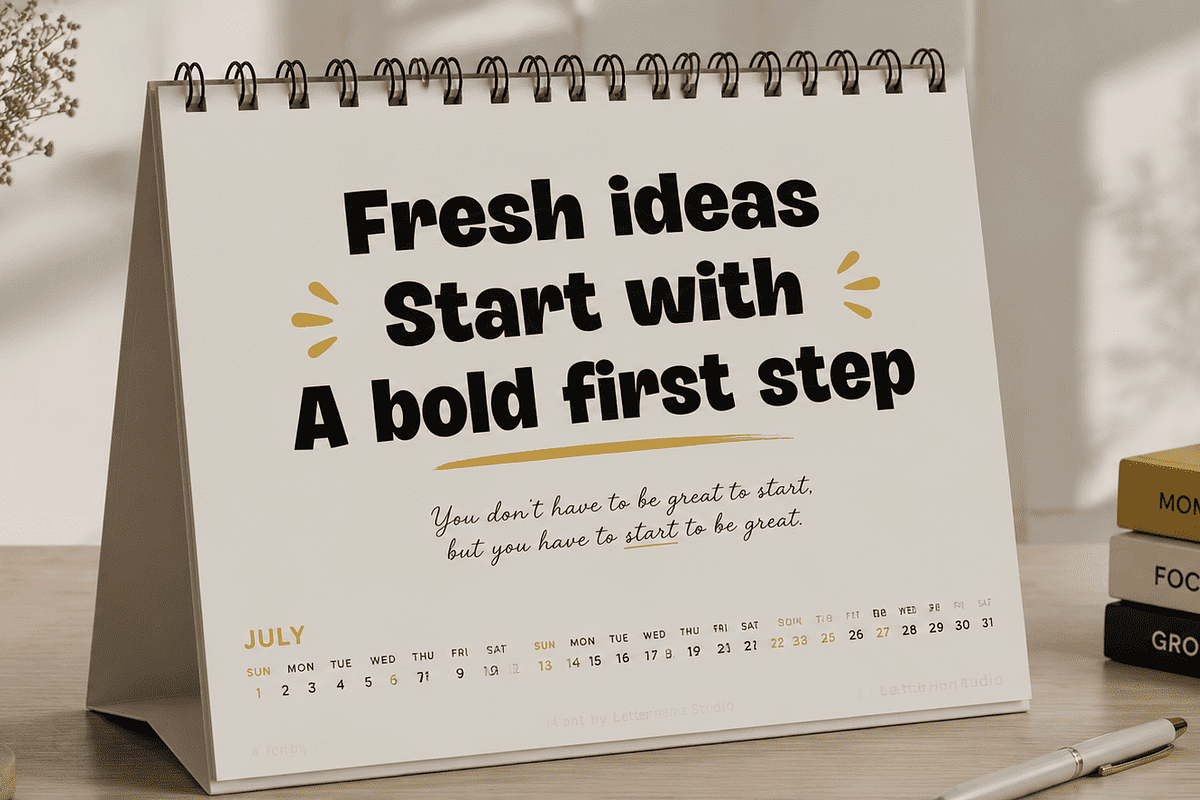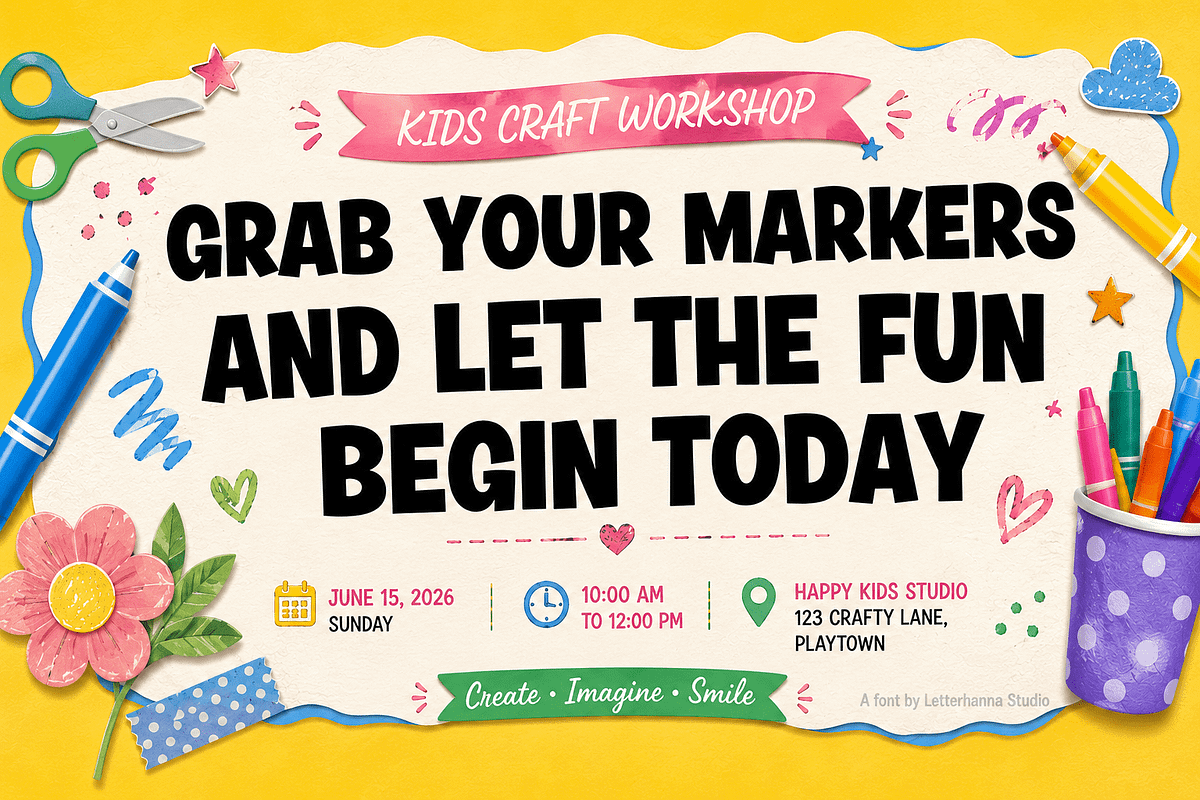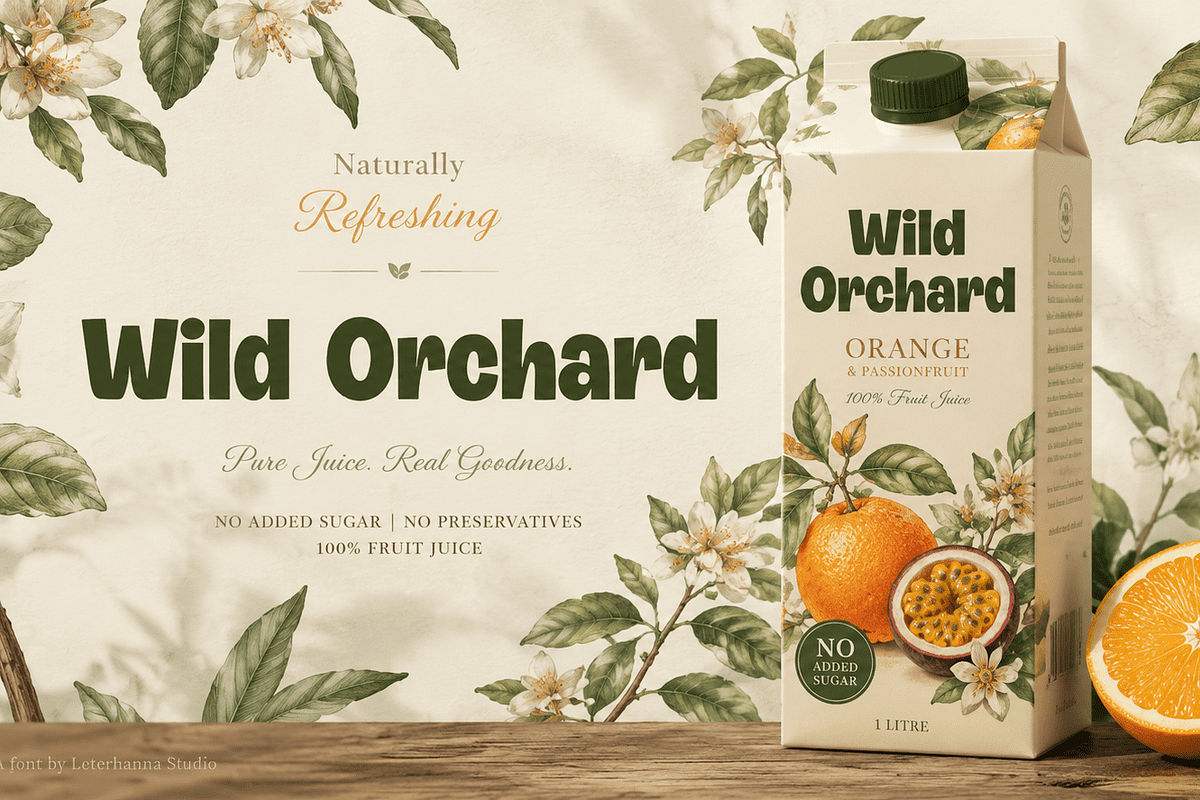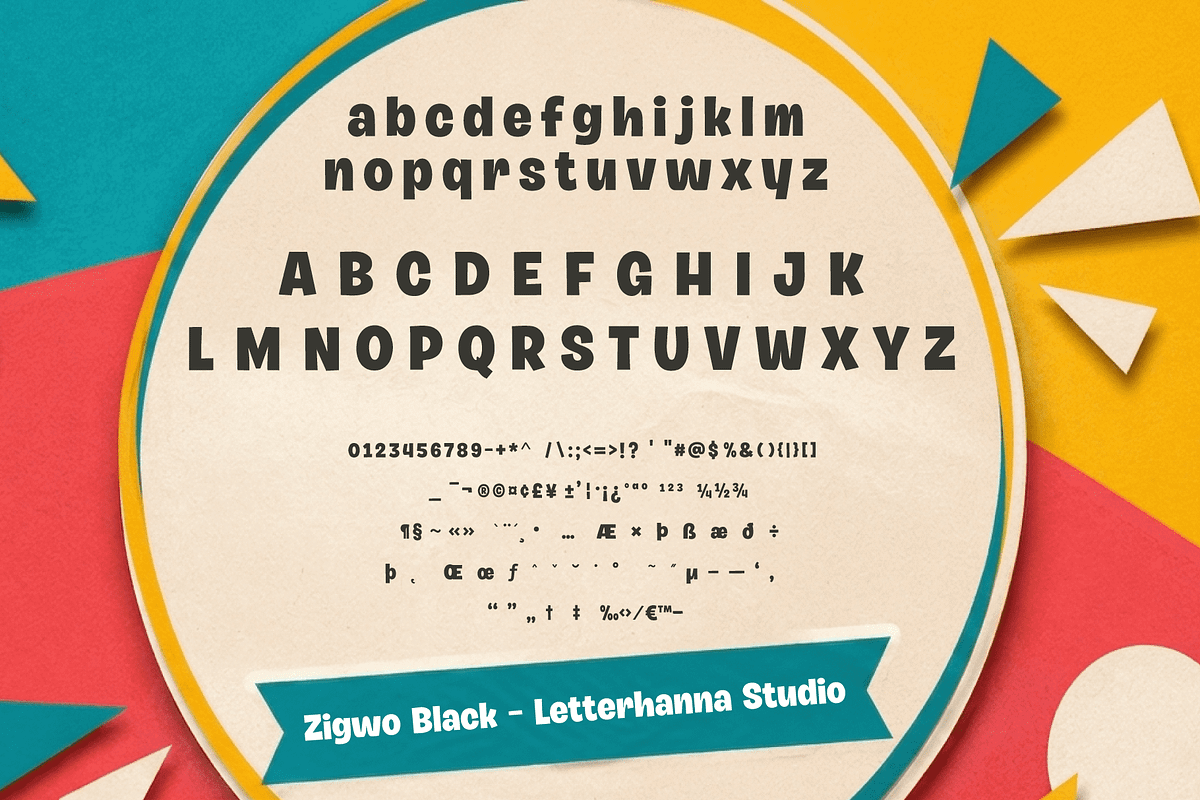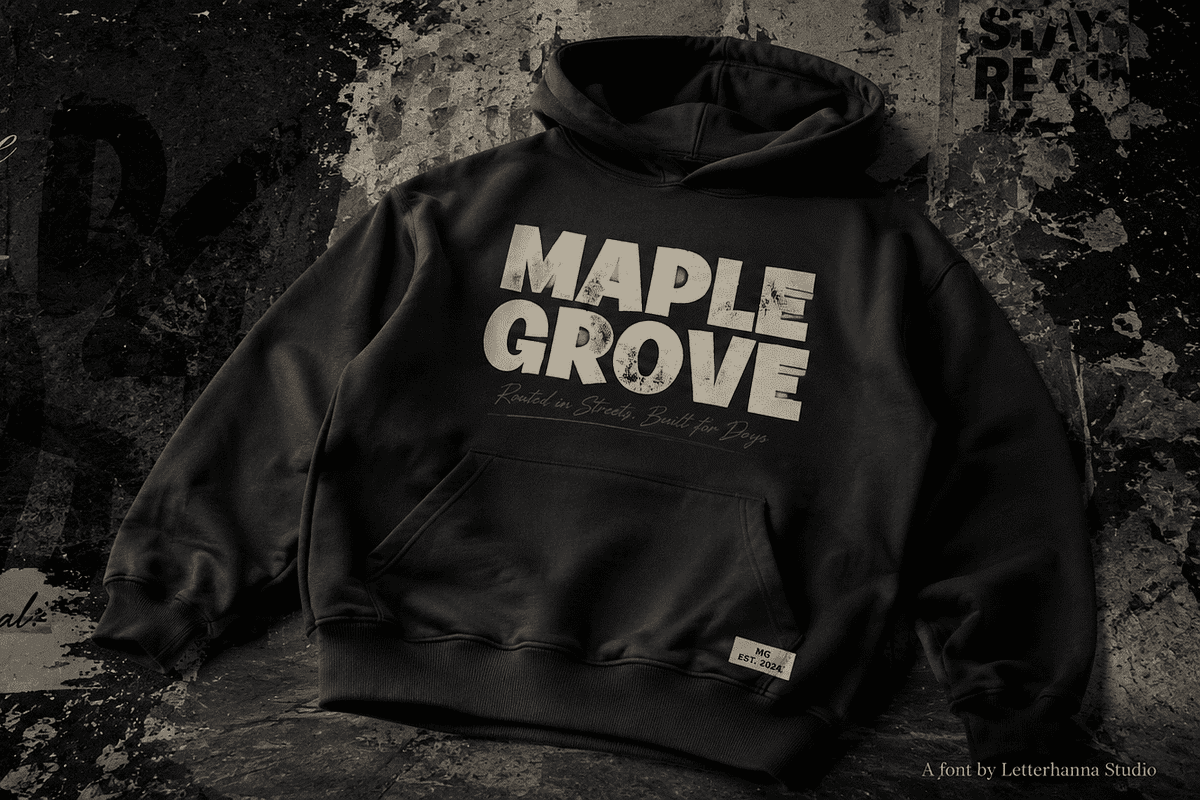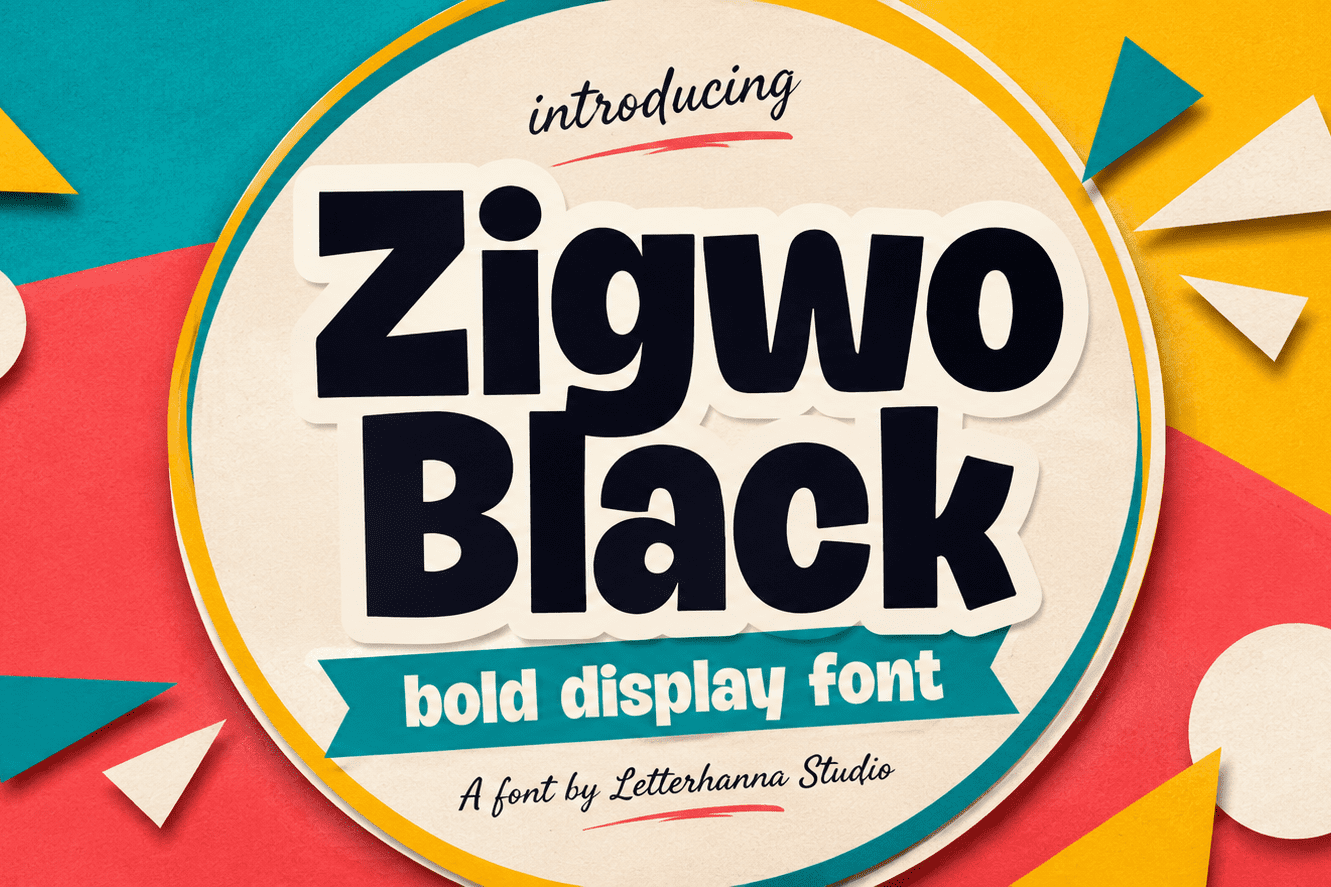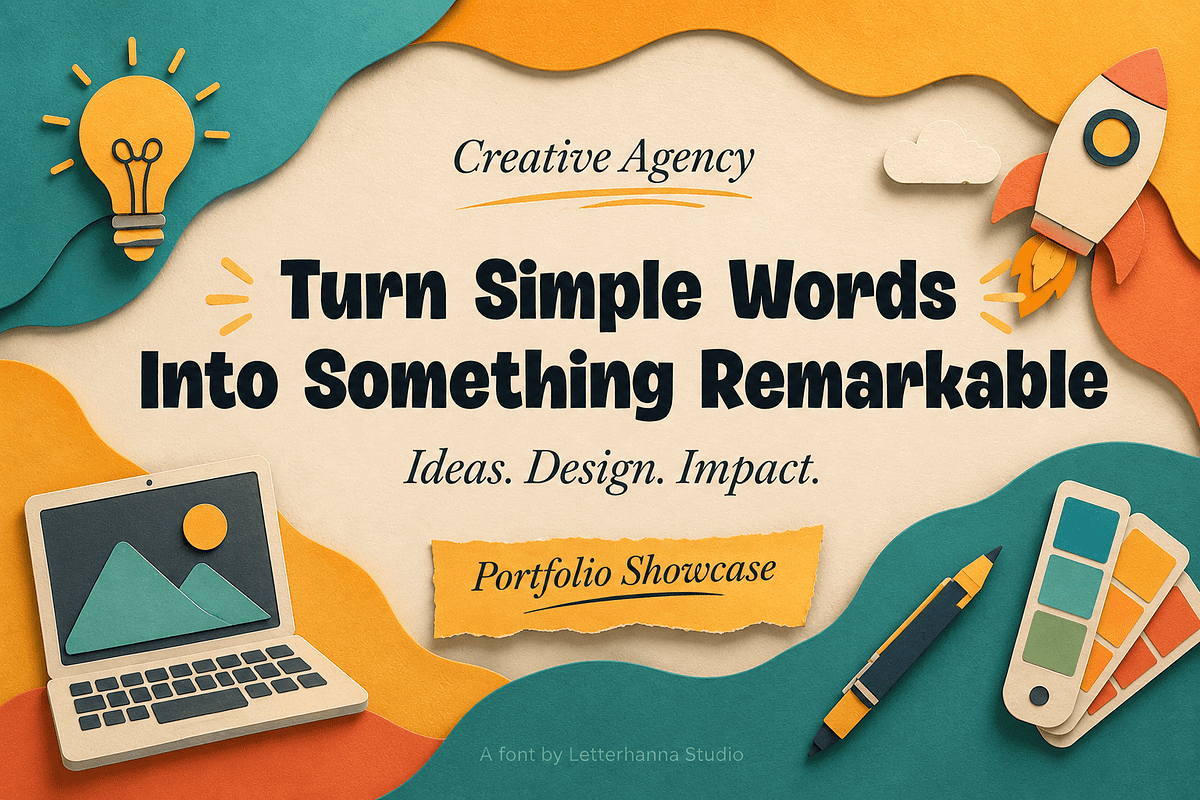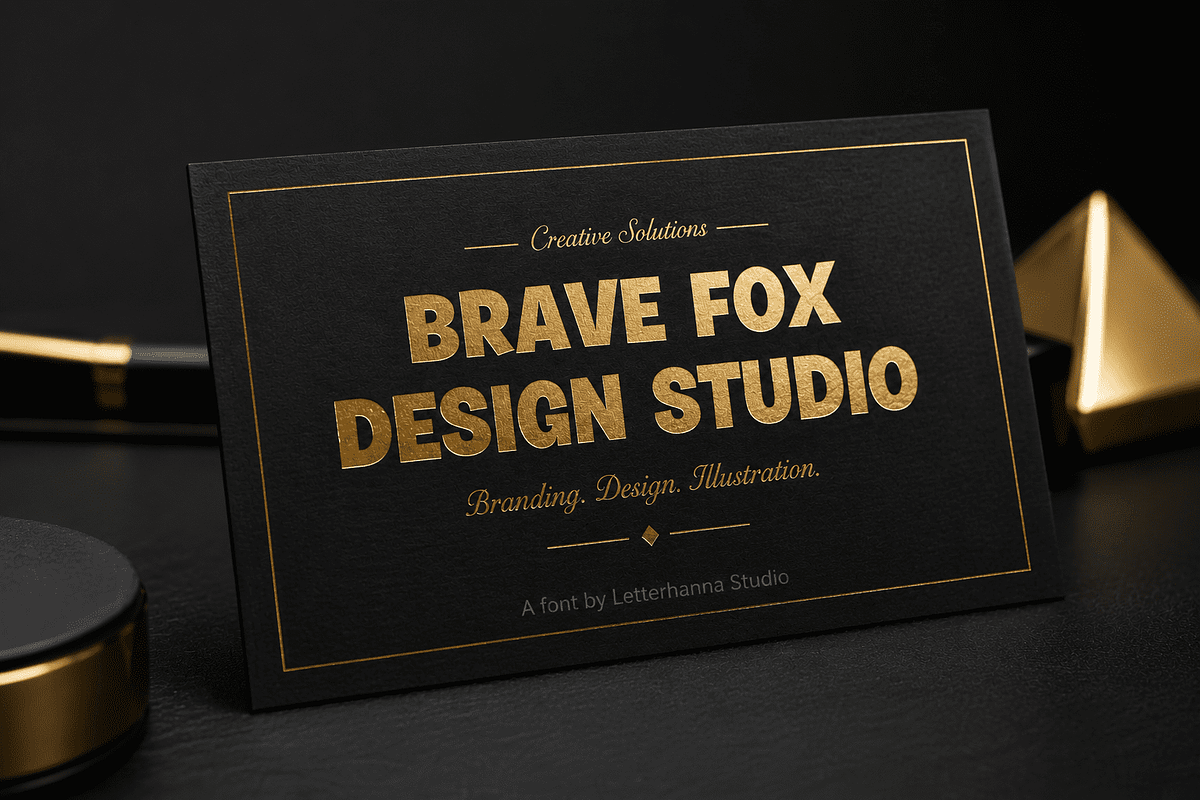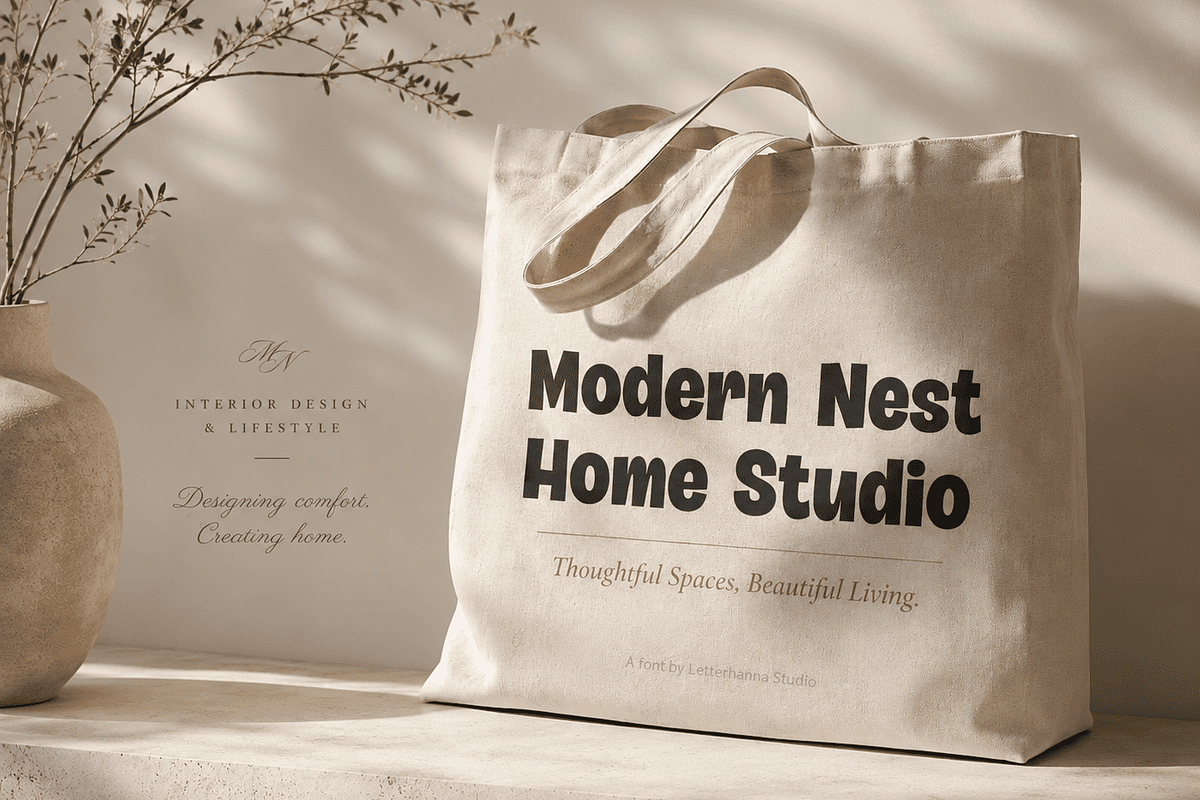
Zigwo Black Chunky Bold Display Font
Every designer has faced that moment of staring at a blank headline, knowing the words are right but the font just isn't pulling its weight. That's usually the sign you need a real bold display font — something with enough presence to carry a message on its own. Zigwo Black was made exactly for that moment.
A Font Born From a Simple Question
The idea behind Zigwo Black came from a question worth asking about any thick font on the market: why do so many "bold" typefaces feel heavy but forgettable? Weight alone doesn't guarantee impact. A font can be massive and still fade into the background if it lacks rhythm, warmth, or personality.
So the design process started small — one chunky alphabet letters sketch at a time. Each letterform was tested not just for thickness, but for how it felt sitting next to its neighbors. Did the word still breathe? Did the shape stay friendly at large sizes and still hold together at small ones? Letter by letter, the alphabet took shape around one goal: bold enough to lead a headline, human enough to still feel inviting.
The Style: Confident, Chunky, and a Little Playful
Zigwo Black sits in that sweet spot between graphic toughness and everyday charm. The strokes are thick and even, giving the font real visual weight, while the slightly rounded, hand-finished edges keep it from feeling cold or overly mechanical. Uppercase letters feel like solid stamped blocks, ready to headline a poster or a product label. Lowercase letters are compact and springy, adding a bouncy rhythm that softens the font's overall boldness.
This is the kind of chunky font that reads as friendly rather than aggressive — a rare balance. It works because the thickness never overwhelms the structure. Counters stay open, spacing stays even, and every letter maintains its own identity even in a tightly packed headline.
The Vibe: Loud, Warm, and Full of Energy
If Zigwo Black had a voice, it would be enthusiastic rather than intimidating — the kind of energy you'd expect from a hand-painted sign at a summer fair, or bold lettering on a favorite snack bag. It's a font that feels handmade, energetic, and a bit nostalgic, without ever losing its modern clarity. That combination is what makes it so versatile: playful enough for a kids' brand, bold enough for streetwear, and clean enough for professional packaging design.
Everyday Uses for a Font Like This
A genuinely useful thick font needs to perform across many contexts, not just look good in a specimen image. Zigwo Black was built with that range in mind:
Bakery, snack, and beverage packaging that needs shelf presence
Event posters and flyers meant to be read from a distance
Bold logo lockups for youthful or energetic brands
Merchandise, stickers, and apparel graphics
Social media headlines built to stop the scroll
Because the letterforms stay legible even at heavy weight, this font holds up whether it's printed three inches tall on a poster or shrunk down for a mobile screen.
Why Character Matters More Than Size
It's easy to assume that "bold" simply means "big," but the fonts people remember are the ones with a distinct feel — a sense that someone designed each curve on purpose. Zigwo Black carries that intention in every letter. It isn't just a thick font for the sake of being thick; it's a font with a clear personality, built to make headlines feel alive rather than just loud.
Bring That Energy Into Your Own Design